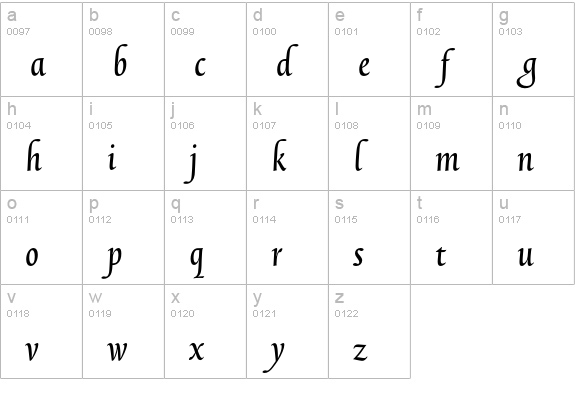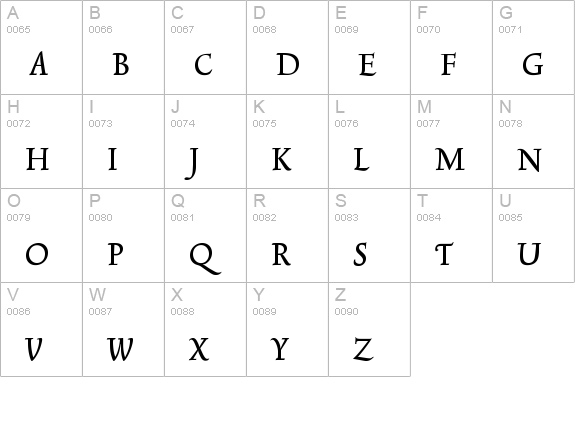
TriniteNo4-MediumItalicTab font is a stunning typeface that effortlessly combines elegance with a touch of playfulness. Its medium weight and italic style give it a modern and sophisticated look, making it perfect for a wide range of design projects. This font features sleek and curved letterforms, with just the right amount of slant, creating a sense of movement and fluidity on the page. The medium weight strikes the perfect balance between boldness and delicacy, making it versatile and easy to read in various sizes. TriniteNo4-MediumItalicTab is the ideal choice for adding a unique and stylish touch to your branding materials, logo designs, website headers, and more. Its versatility allows it to adapt to different design styles, whether you're going for a sleek and minimalistic look or a more bold and expressive approach. One of the best things about TriniteNo4-MediumItalicTab font is that it is freely available to download at FontsMarket.com. This means that you can access this exceptional font without breaking the bank. Whether you're a professional designer or a hobbyist, having access to high-quality fonts like TriniteNo4-MediumItalicTab can greatly enhance your creative projects. So why wait? Elevate your designs with TriniteNo4-MediumItalicTab font and explore the endless possibilities it offers. Download it today for free at FontsMarket.com and let your creativity soar!